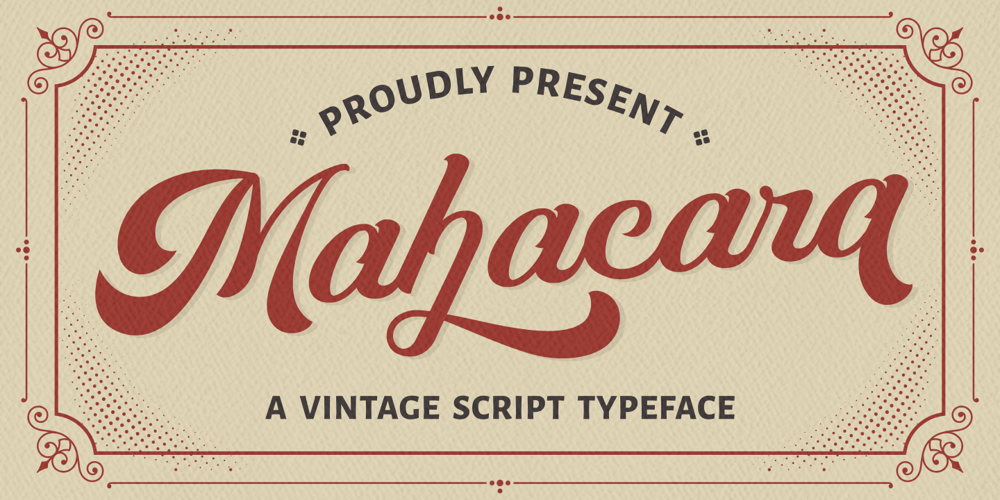
Mahacara
Mahacara font
Mahacara Font Family was designed by Putra Novembria Candra Kusuma and published by Putracetol. Mahacara contains 1 styles and family package options. Mahacara is a vintage script font. The classic feel is really perfect for anyone who needs a typeface for retro or vintage themes. This font is comes in uppercase, lowercase, punctuation, symbols & numerals, alternates, multi-lingual support and is already PUA encoded.Mahacara is perfect for logotype, apparel, invitations, magazines, branding, packaging, advertising, fashion, make up, stationery, novels, labels and more.